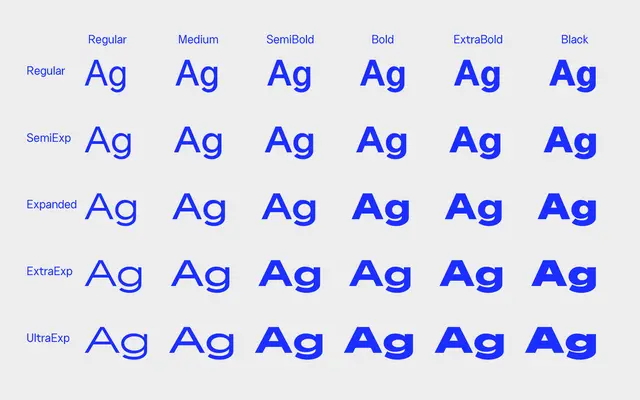
Neuething Variable Family
A variable sans covering six weights and five widths from Regular to UltraExpanded, offered as both static and variable font packages.
Spanning 30 static styles across six weights and five widths, the family also ships as a variable font with continuous weight and width axes. Width options run from standard to UltraExpanded, making the family particularly suited to display work where horizontal stretch is needed. OpenType features include stylistic sets, fractions, ordinals and superscript.
Described by the foundry as a go-to sans serif; the variable weight and width axes, clean construction and geometric proportions place it firmly in the geometric sans category.